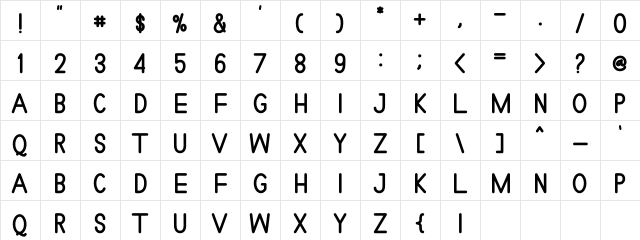
Feelgoodnes sans Regular
Design Context for Feelgoodnes sans Typeface
Feelgoodnes sans is a composed and adaptable typeface that performs quietly and consistently across a wide range of design contexts.